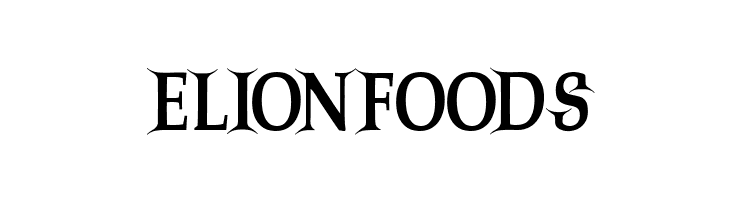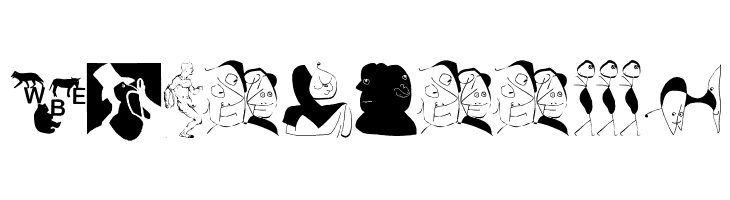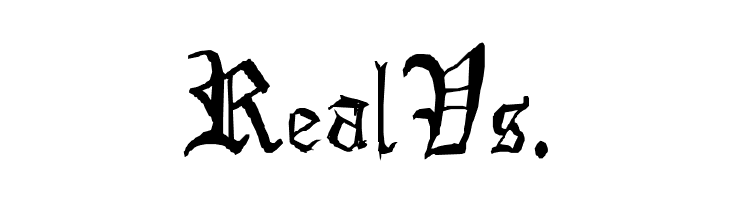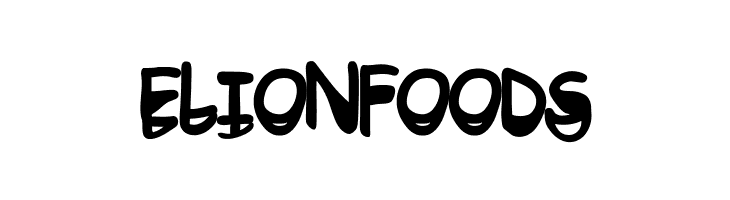
A decorative, dice-inspired font with numbers and dots inside pentagonal shapes.
Numerals inside dodecahedron shapes with a clean, geometric sans-serif style.
A decorative font featuring numbers inside icosahedron dice shapes.
A bold, graphic set of gaming-themed icons ideal for adventurous designs.
The image contains symbols and numbers, not a valid font.
The image contains symbols and icons, not a standard font.
Pentagon-encased, modular geometric display font.
Geometric triangular design with bold typography and a navigational theme.
A bold, playful handwritten font with thick, rounded strokes.
A bold, rugged font with a gothic, hand-carved appearance.
A spooky, dripping font perfect for horror themes.
A bold, blackletter font with intricate, angular letterforms and a medieval aesthetic.
A bold, gothic-inspired font with sharp, angular edges and dramatic flair.
An ornate and decorative font with medieval-inspired flourishes.
A bold, hand-drawn font with dramatic, irregular strokes and an artistic flair.
A bold, angular font with a fantasy-inspired, dragon-like design.
A bold, shadowed font with a gothic, angular design.
A bold, geometric font with strong, block-like characters and high contrast.
An elegant script font with intricate swashes and flowing lines.
An elegant script font with dramatic flourishes and high contrast strokes.
Illustrative, decorative font themed around dramatic and creative arts.
A dynamic, sketch-like font with overlapping strokes and artistic flair.
A playful, hand-drawn illustrative font with unique doodle-based characters.
A collection of artistic symbols with bold, dynamic illustrations.
Expressive, hand-drawn faces and figures replace traditional letterforms in a playful, decorative style.
A playful, hand-drawn font with tall, narrow characters and a whimsical style.
A playful, child-themed font with bold, rounded letters and integrated silhouettes of children.
A bold, futuristic font with rounded, interconnected strokes for a modern look.
A decorative font with whimsical, hand-drawn illustrations and playful text.
A bold, geometric font with a strong, cohesive design ideal for impactful headlines.